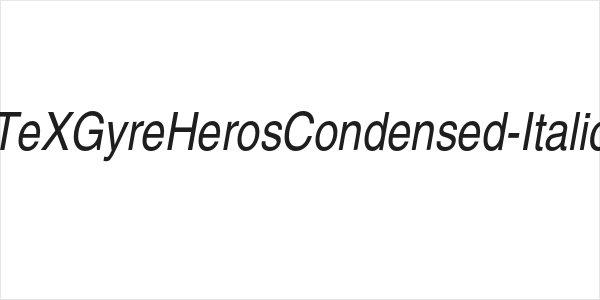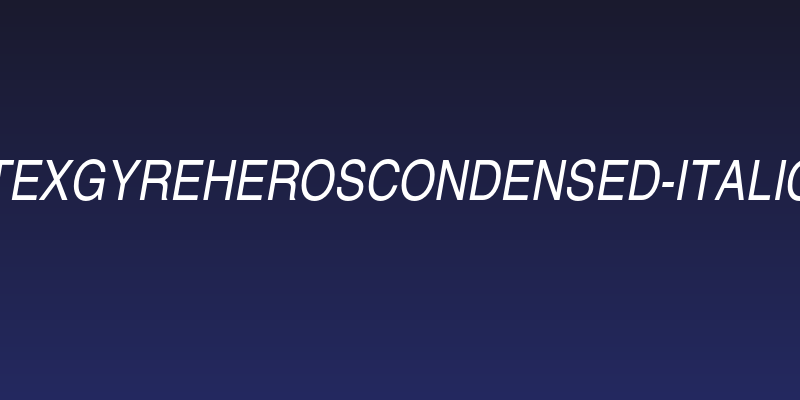
TeXGyreHerosCondensed-Italic Font
TeXGyreHerosCondensed-Italic Description
This font features a clean and modern sans-serif design with a condensed width and italic style. The characters are slightly slanted, giving a dynamic and forward-moving appearance. The strokes are uniform, with medium contrast, providing a balanced and legible look. The overall style is sleek and professional, making it suitable for a variety of applications. The character spacing is tight, which enhances its compact and efficient design. This font is versatile and can be used in both digital and print media, offering a contemporary aesthetic.
| Proposed Projects | Ideal for branding, advertising, web design, and editorial layouts where a modern and professional look is desired. |